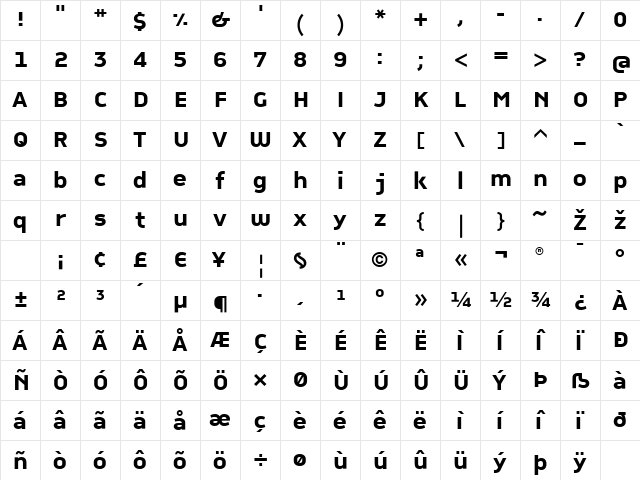
CPCompany Regular
Design Context for CPCompany Typeface
CPCompany is a composed and adaptable typeface that performs quietly and consistently across a wide range of design contexts.